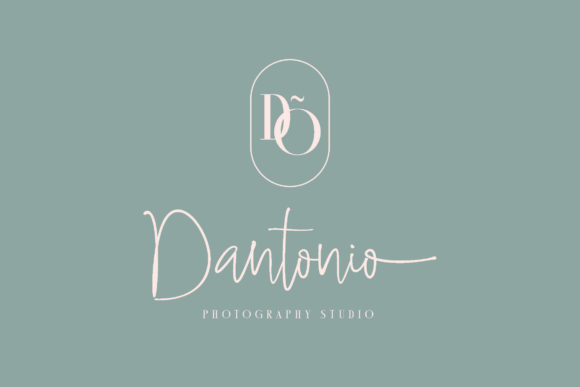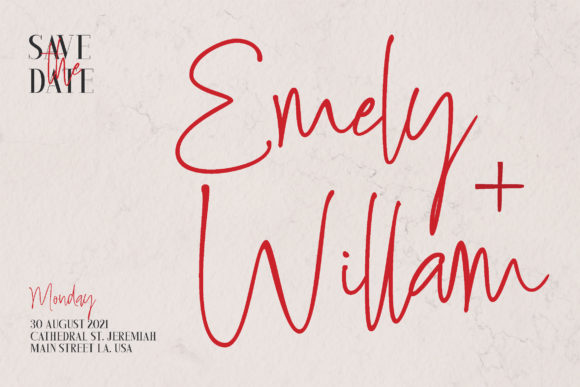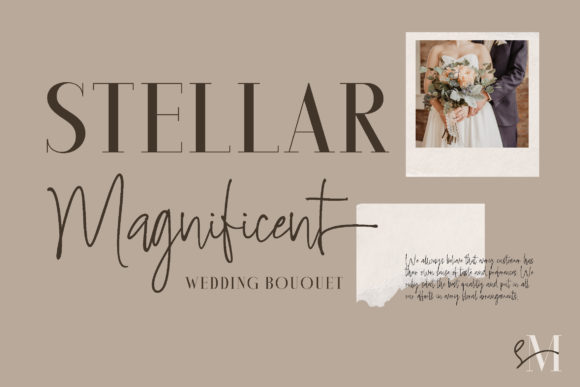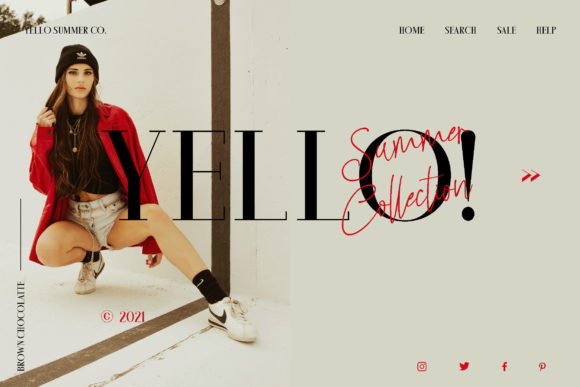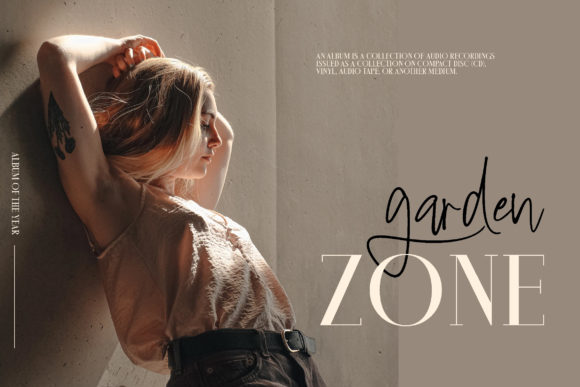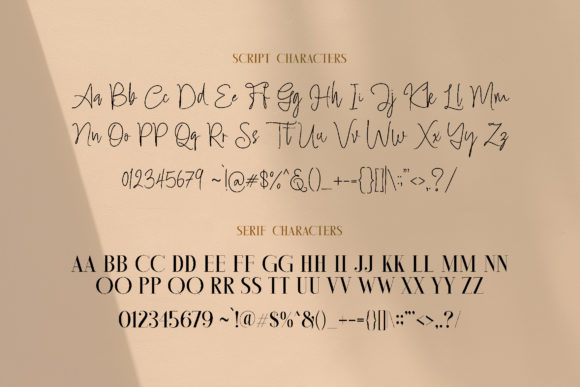
Brown Chocolatte Duo Font
About Brown Chocolatte Duo Font
Brown Chocolatte Duo is an elegant and thin lettered font (serif and handwritten). It is PUA encoded which means you can access all of the glyphs and swashes with ease! It maintains its classy calligraphic influences while feeling contemporary and fresh.